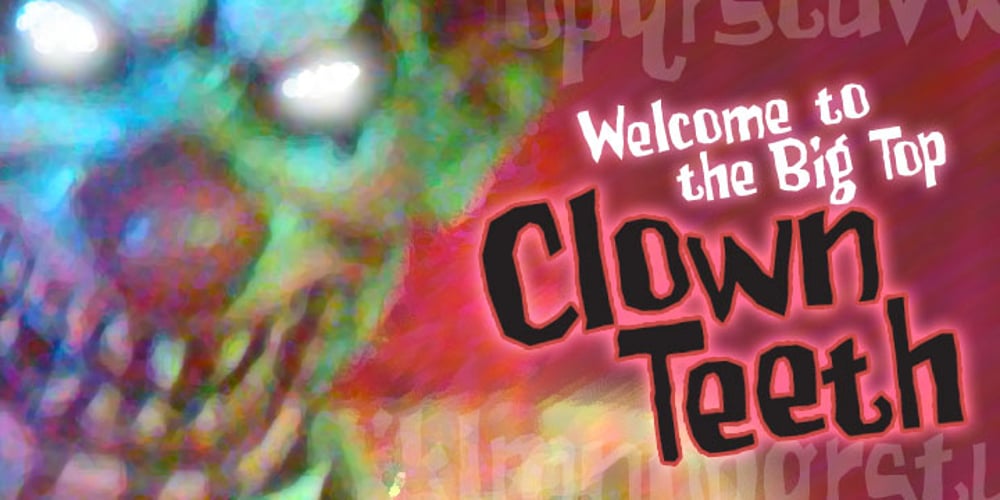
Clown Teeth BB
Clown Teeth BB font
Clown Teeth BB Font Family was designed by Nate Piekos and published by Blambot. Clown Teeth BB contains 4 styles and family package options. Welcome to the Big Top, kids! Letís face it – clowns are scary. And hereís a font family to match. CLOWN TEETH BB is a slightly off-kilter upper/lowercase font with a staggered baseline. Comes with Regular and Italic.